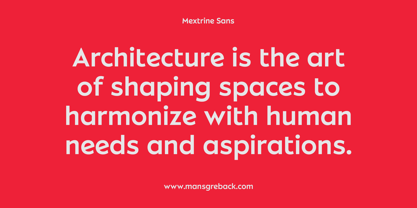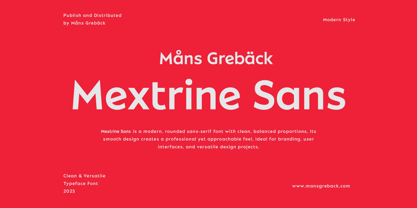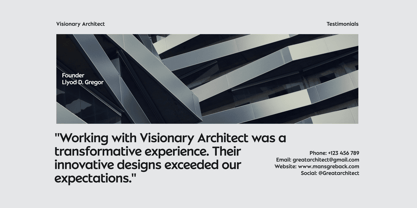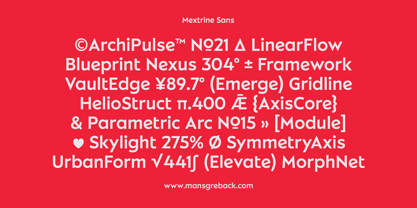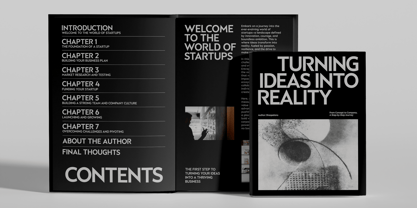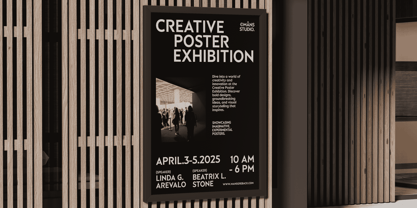
Mextrine Sans
Mextrine Sans is a modern sans-serif typeface, constructed with a balanced width, rounded terminals and geometric shapes, yet with soft and inviting contours.
Mextrine Sans is highly readable and is great for texts, quotes, paragraphs, but works well for logos and headlines as well. Its simple, yet expressive structure and sturdy design makes it applicable to various design settings, and conveys a friendly and contemporary feel.
The font is built with advanced OpenType functionality and guaranteed top-notch quality, containing stylistic and contextual alternates, ligatures and more automatic and manual features; all to give you full control and customizability.
It has extensive lingual support, covering all Latin-based languages, from North Europa to South Africa, from America to South-East Asia. It contains all characters and symbols you'll ever need, including all punctuation and numbers.
This font was created by Mans Greback in 2024-2025.